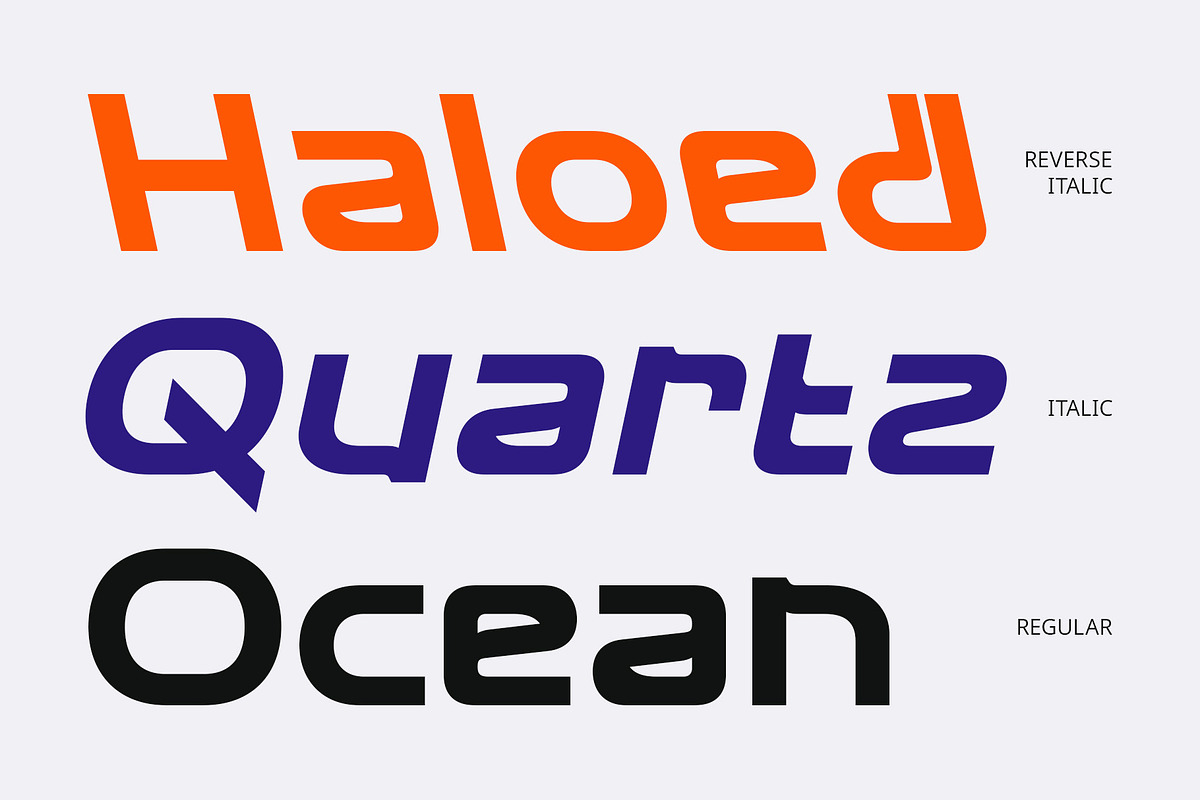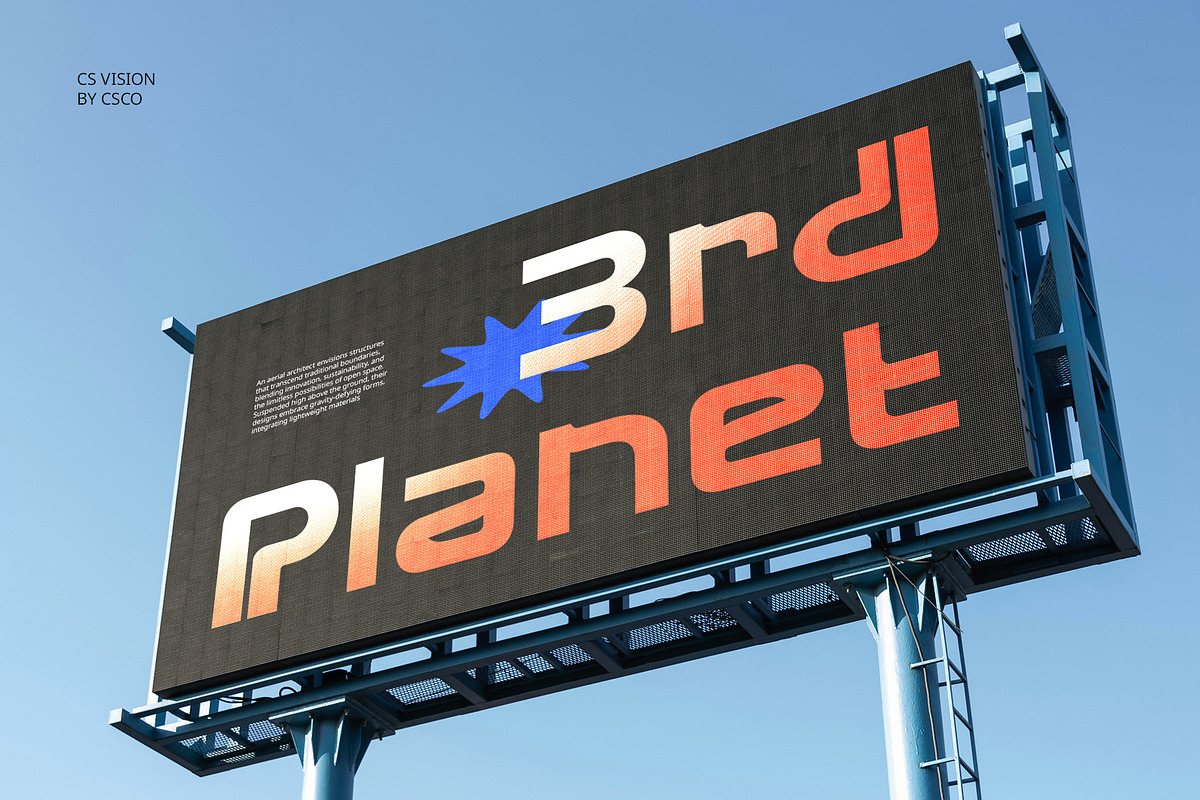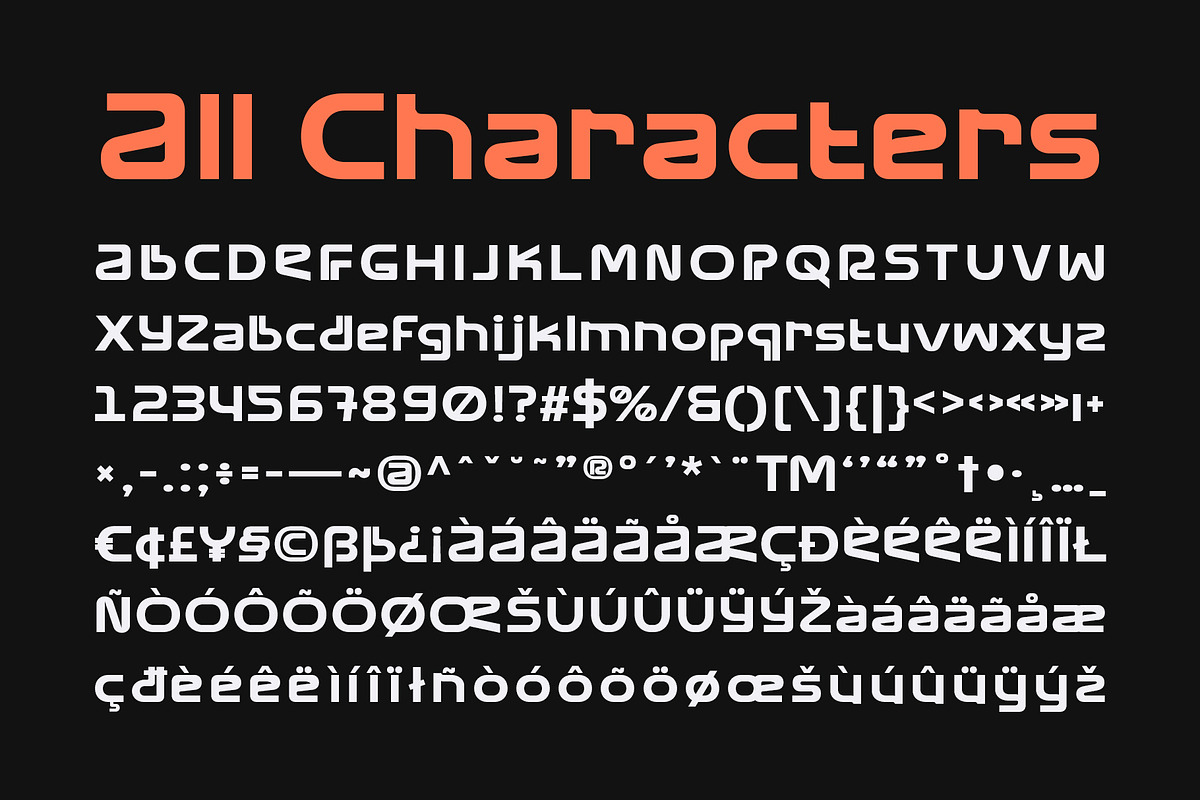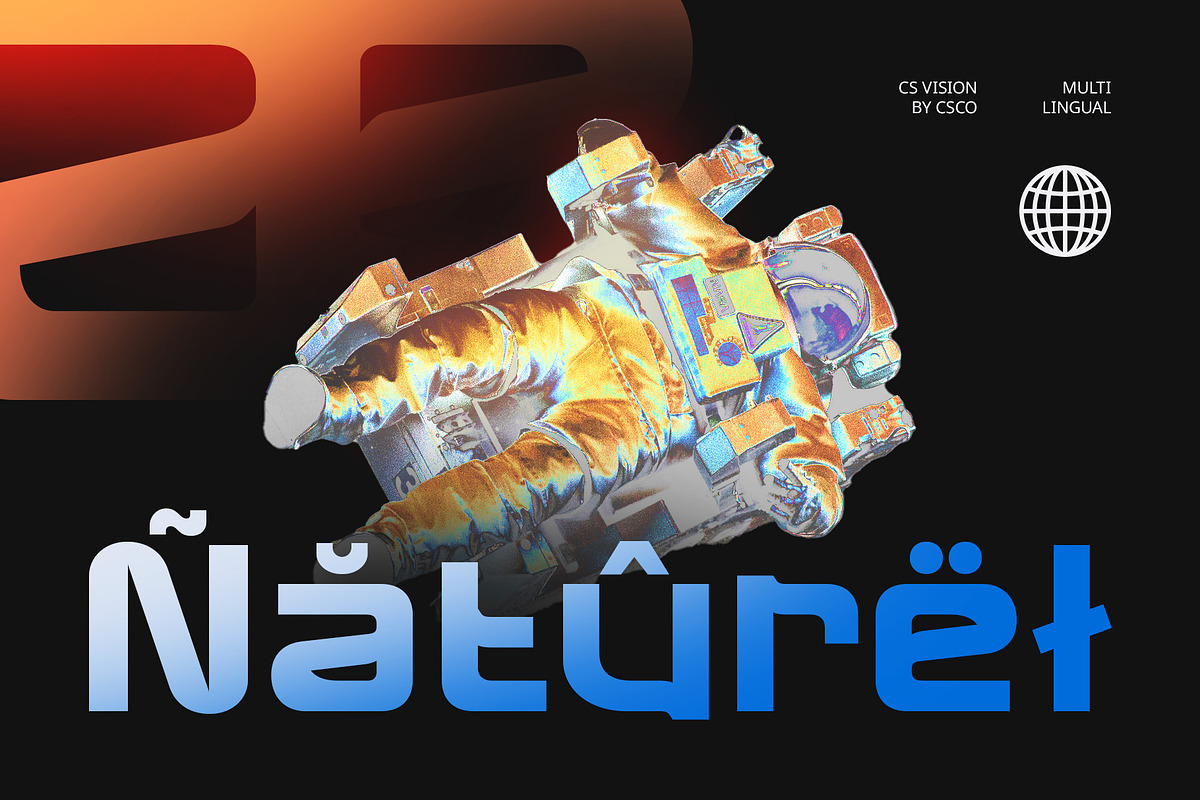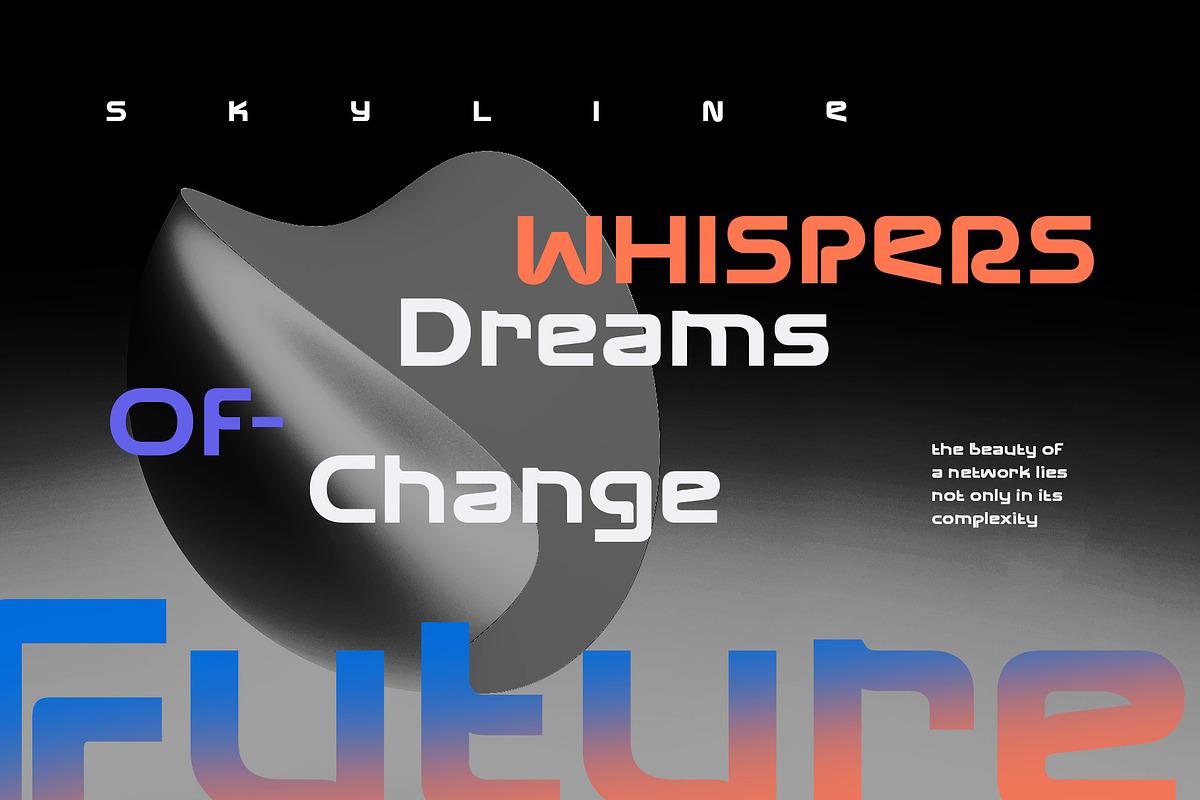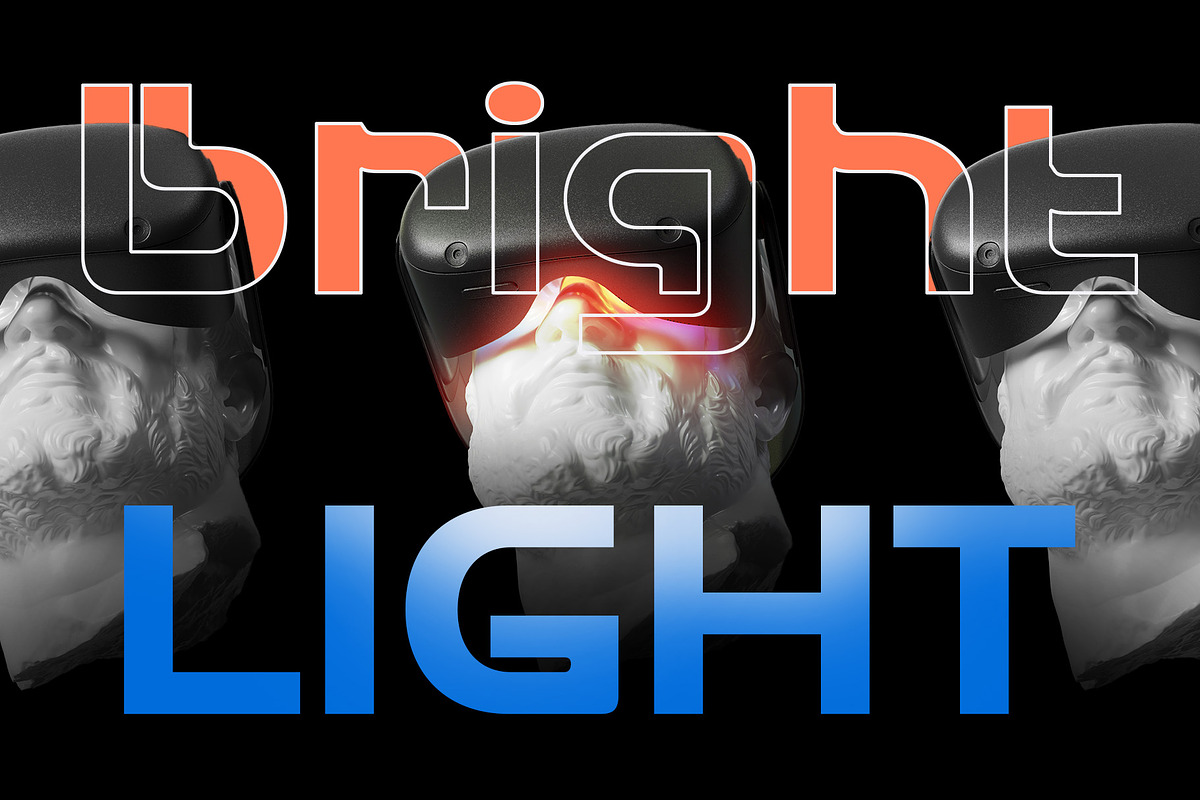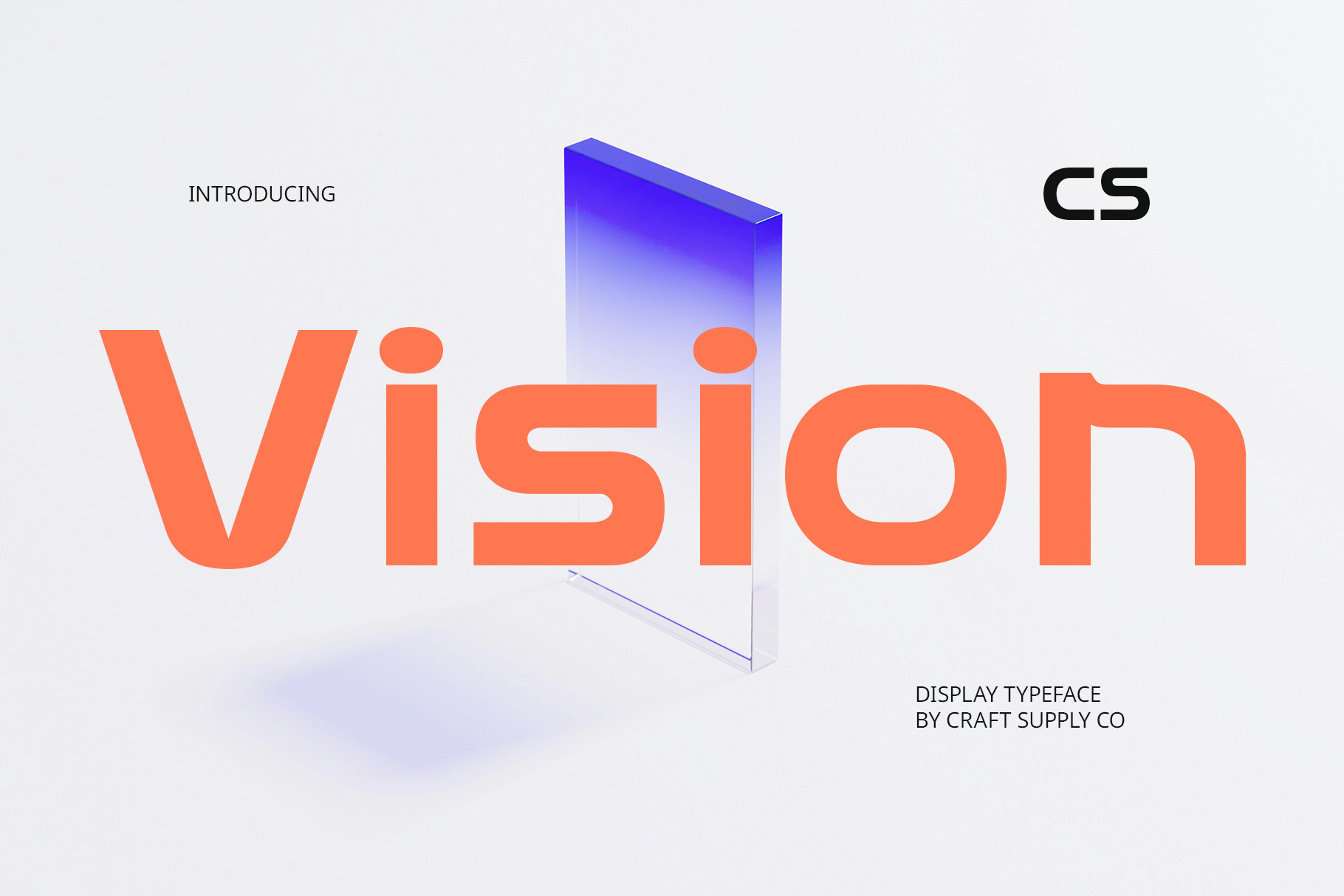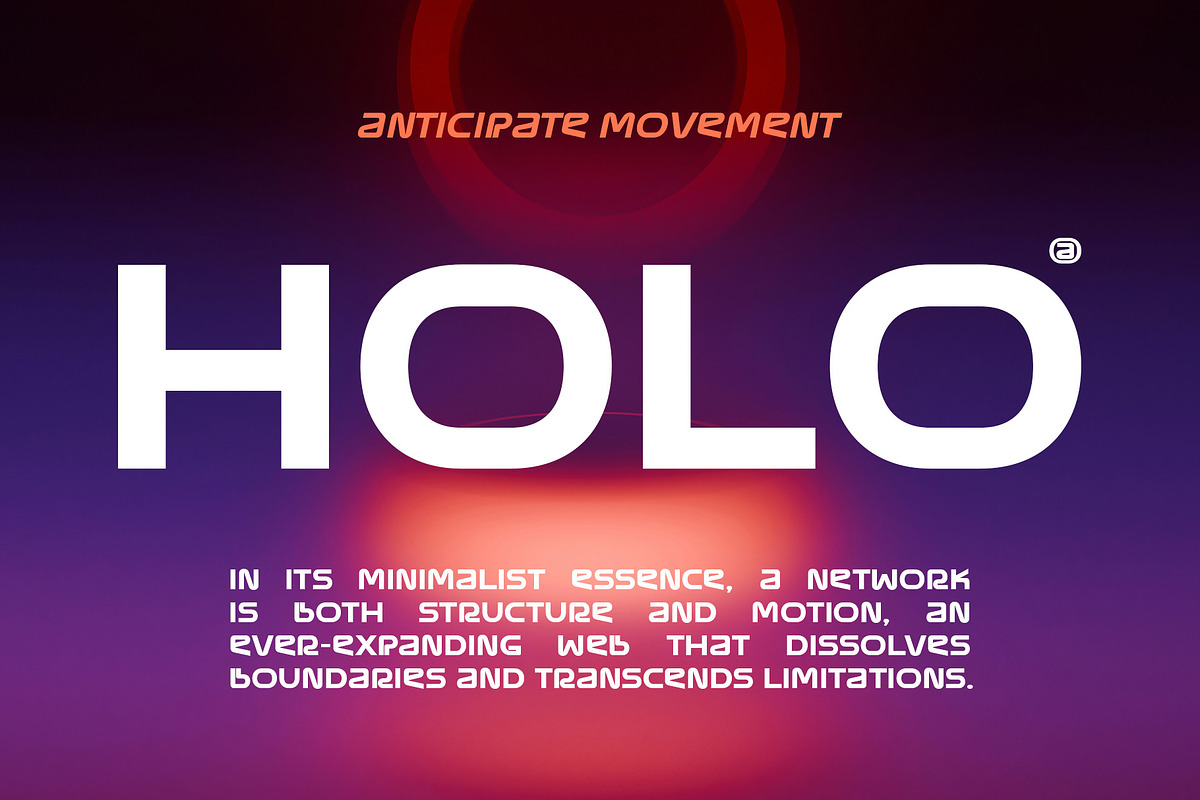
CS Vision – Techno Font
CS Vision – Techno Font: Bold Geometry for a Futuristic Future
Display Sans-Serif with Techno Style CS Vision – Techno Font is a bold display sans-serif typeface featuring a futuristic techno style and precise geometric construction. Its sharp angles and clean forms create a distinctly modern and high-tech aesthetic, perfect for digital-forward projects that demand a cutting-edge look.
Futuristic and Digital Appeal The techno-inspired letterforms are designed to evoke innovation and speed, making CS Vision perfect for high-energy visuals. Its dynamic and modern appeal resonates with technology, providing the ultimate digital identity for projects ranging from tech branding to sci-fi concepts. Whether you’re developing a new app interface, creating a futuristic web design, or working on music album covers with a digital twist, this font gives your designs a sleek, contemporary feel.
Geometric Precision with Strong Impact CS Vision stands out with its structured and symmetrical shapes, offering a powerful visual presence. The bold weight and rigid geometry enhance clarity and strength, ensuring your message comes through with confidence and intensity.
Ideal for Tech, Gaming, and Modern Creative Projects Designed for futuristic themes and digital aesthetics, CS Vision is a top choice for game titles, UI design, esports branding, or tech start-up visuals. Its bold and modern style adds innovation and forward-thinking flair to any creative project.